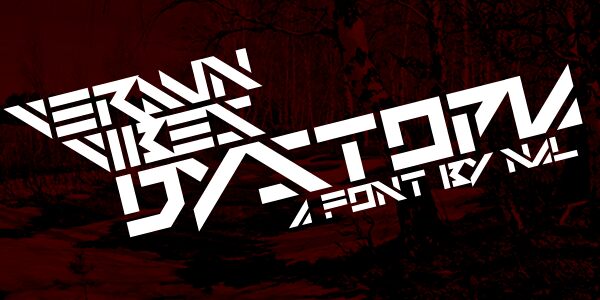
Vermin Vibes Dystopia by Andrew McCluskey is a free modern Gothic display font with a severe futuristic profile. Its broad, angular letters combine hard diagonals with abrupt cuts and squared joins. Narrow openings and alternating stroke widths give the forms a dense, engineered look.
Circuit diagrams and mechanical illustration can echo its sharp geometry on game packaging, digital graphics, and music merchandise. Science-fiction posters and dystopian entertainment branding can use the fractured construction to suggest machinery, surveillance, and hostile technology.